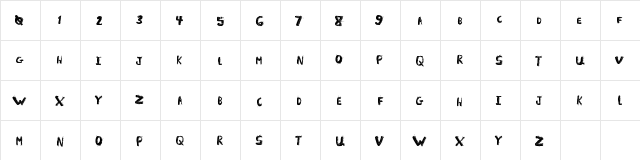
LightFuze Regular Font Preview
LightFuze Regular
LightFuze Regular Font Details
Design Context for LightFuze Typeface
LightFuze is a composed and adaptable typeface that performs quietly and consistently across a wide range of design contexts. Its slender proportions lend an understated elegance to any composition.